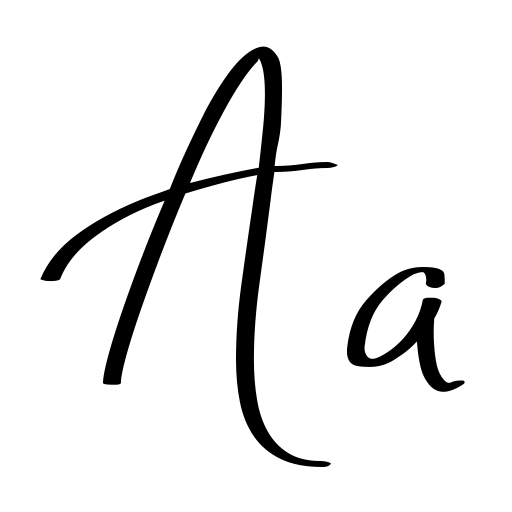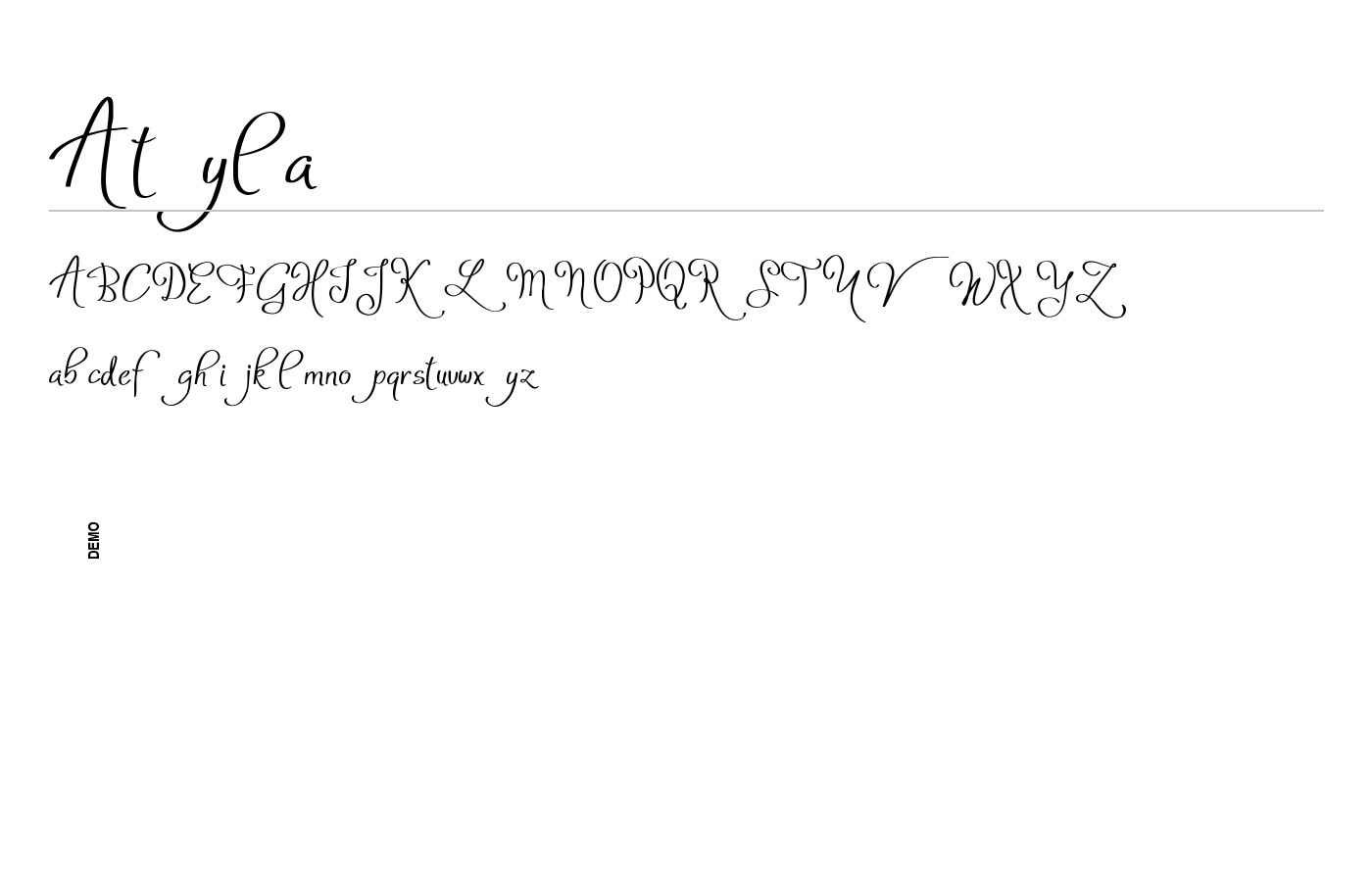
Atyla is an elegant, delicate script font with fine, flowing strokes that create a graceful and sophisticated appearance. Its thin, fluid lines and decorative letterforms make it ideal for luxury branding, invitations, and feminine design projects where a touch of refinement and charm is desired. This font works best in headlines or display uses, adding a stylish and artistic flair to any creative work.
Atyla Font
About Atyla Font